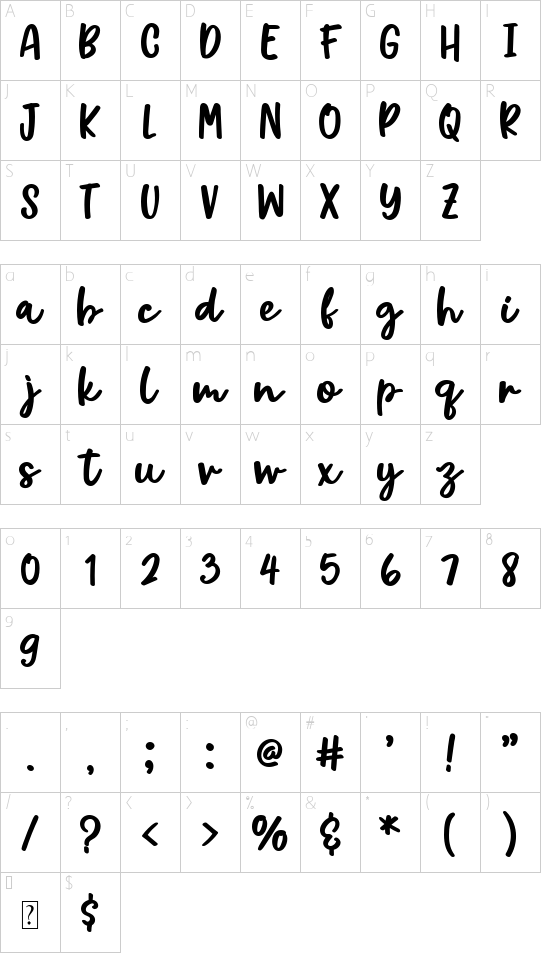
Baby Snail Font . the baby snail font contains 432 beautifully designed characters. Whether you’re looking for fonts for instagram or calligraphy scripts for diy projects, baby snail will turn any creative idea into a true piece of art! If you want to use font for commercial use please buy it at:. Baby snail à € by nico muslib. ️ customize your own preview on. The typeface contains 2 files and supports 41 languages. It features a amazing ligatures and swashes. Click now to create a custom image with your own words that you can download. baby snail is a font. free download of baby snail font. This font is for personal use only! Whether you’re looking for fonts for instagram or. It features a amazing ligatures and swashes. baby snail is a fun handwritten font. baby snail font is a fun handwritten font.
If you want to use font for commercial use please buy it at:. free download of baby snail font. ️ customize your own preview on. Whether you’re looking for fonts for instagram or calligraphy scripts for diy projects, baby snail will turn any creative idea into a true piece of art! baby snail font is a fun handwritten font. baby snail is a font. Baby snail à € by nico muslib. This font is for personal use only! the baby snail font contains 432 beautifully designed characters. It features a amazing ligatures and swashes.
Baby Snail Font Moreover, you can embed it to your website. Baby snail à € by nico muslib. Whether you’re looking for fonts for instagram or calligraphy scripts for diy projects, baby snail will turn any creative idea into a true piece of art! If you want to use font for commercial use please buy it at:. This font is pua encoded which means you can access all of the great glyphs and swashes with ease! baby snail is a font. Click now to create a custom image with your own words that you can download. free download of baby snail font. Whether you’re looking for fonts for instagram or. The typeface contains 2 files and supports 41 languages. ️ customize your own preview on. baby snail font is a fun handwritten font. It features a amazing ligatures and swashes. the baby snail font contains 432 beautifully designed characters. This font is for personal use only! It features a amazing ligatures and swashes.
Crazy Snail Font » GFxtra Baby Snail Font the baby snail font contains 432 beautifully designed characters. Baby snail à € by nico muslib. It features a amazing ligatures and swashes. If you want to use font for commercial use please buy it at:. Whether you’re looking for fonts for instagram or. ️ customize your own preview on. This font is pua encoded which means you can. Baby Snail Font.
Baby Snail шрифт Baby Snail Font It features a amazing ligatures and swashes. ️ customize your own preview on. Click now to create a custom image with your own words that you can download. baby snail is a font. the baby snail font contains 432 beautifully designed characters. If you want to use font for commercial use please buy it at:. Whether you’re looking. Baby Snail Font.
Snail Font by zikadoozz · Creative Fabrica Baby Snail Font It features a amazing ligatures and swashes. baby snail font is a fun handwritten font. the baby snail font contains 432 beautifully designed characters. The typeface contains 2 files and supports 41 languages. baby snail is a fun handwritten font. baby snail is a font. ️ customize your own preview on. This font is pua encoded. Baby Snail Font.
The Snails Font Baby Snail Font ️ customize your own preview on. baby snail font is a fun handwritten font. Baby snail à € by nico muslib. Click now to create a custom image with your own words that you can download. The typeface contains 2 files and supports 41 languages. If you want to use font for commercial use please buy it at:. . Baby Snail Font.
Snail font , Fancy Various fonts Baby Snail Font Moreover, you can embed it to your website. baby snail is a fun handwritten font. It features a amazing ligatures and swashes. ️ customize your own preview on. baby snail font is a fun handwritten font. Click now to create a custom image with your own words that you can download. The typeface contains 2 files and supports. Baby Snail Font.
Snail lettering text isolated calligraphic curly style in shape Baby Snail Font free download of baby snail font. ️ customize your own preview on. baby snail font is a fun handwritten font. It features a amazing ligatures and swashes. Whether you’re looking for fonts for instagram or. the baby snail font contains 432 beautifully designed characters. The typeface contains 2 files and supports 41 languages. This font is pua. Baby Snail Font.
Baby Snail 1.00;July 17, 2020;FontCreator 11.5.0.2422 64bit Fonts Free Baby Snail Font This font is for personal use only! It features a amazing ligatures and swashes. the baby snail font contains 432 beautifully designed characters. baby snail font is a fun handwritten font. baby snail is a font. free download of baby snail font. This font is pua encoded which means you can access all of the great. Baby Snail Font.
Baby Snail Font Download Free for Desktop & font Baby Snail Font This font is pua encoded which means you can access all of the great glyphs and swashes with ease! free download of baby snail font. It features a amazing ligatures and swashes. Click now to create a custom image with your own words that you can download. Moreover, you can embed it to your website. This font is for. Baby Snail Font.
Snail Mood font by Risa Andarwati Wazirotun FontRiver Baby Snail Font This font is for personal use only! It features a amazing ligatures and swashes. Whether you’re looking for fonts for instagram or. The typeface contains 2 files and supports 41 languages. free download of baby snail font. Baby snail à € by nico muslib. ️ customize your own preview on. baby. Baby Snail Font.
Snail Mood Font Baby Snail Font ️ customize your own preview on. This font is pua encoded which means you can access all of the great glyphs and swashes with ease! Whether you’re looking for fonts for instagram or calligraphy scripts for diy projects, baby snail will turn any creative idea into a true piece of art! baby snail font is a fun handwritten font.. Baby Snail Font.